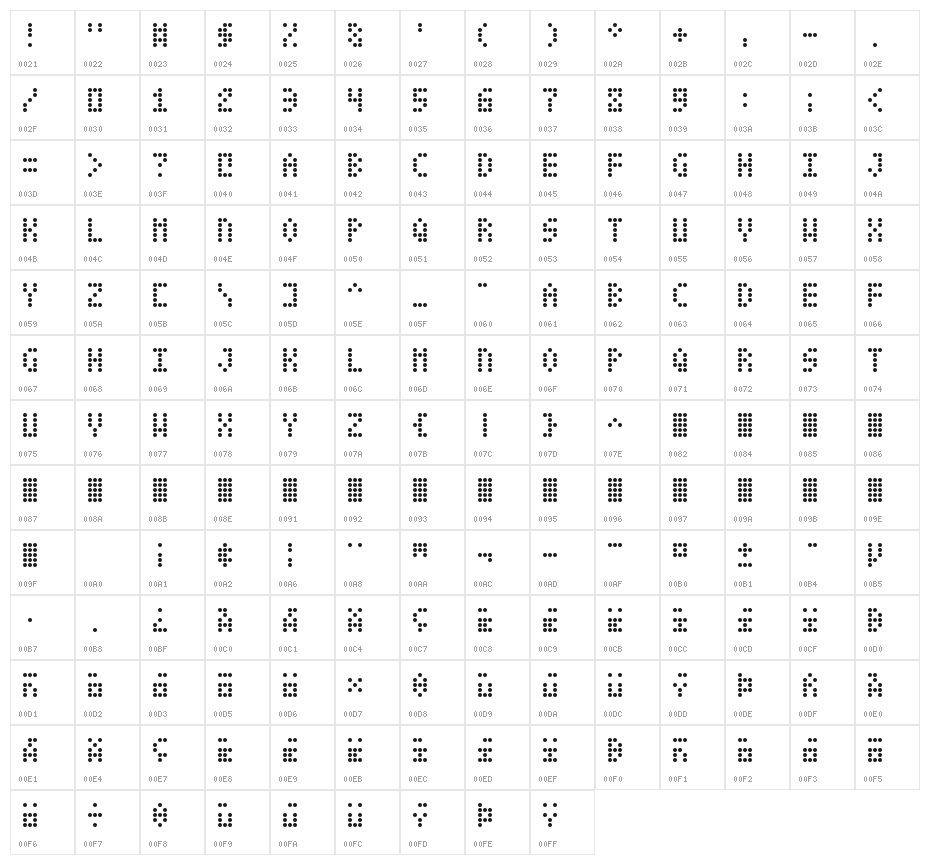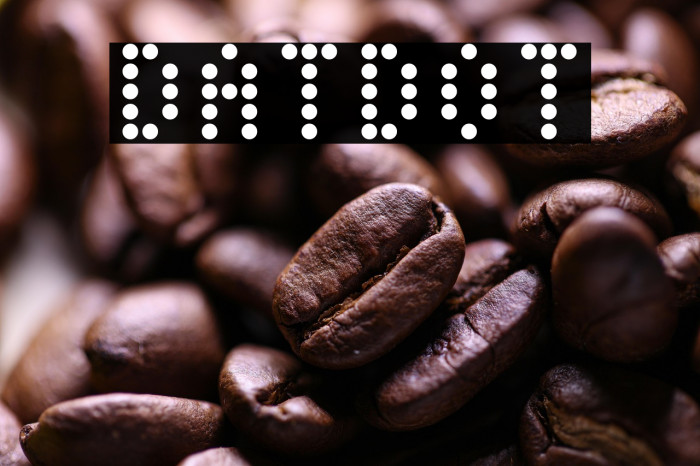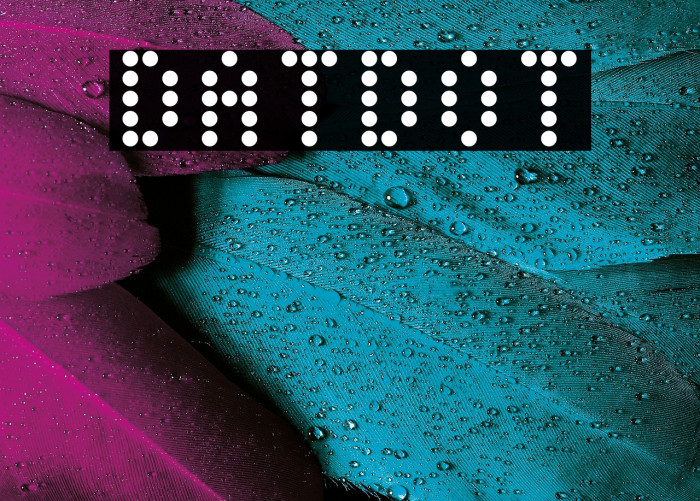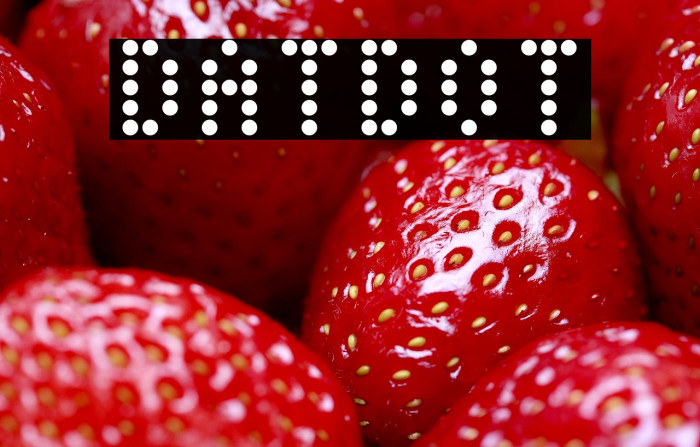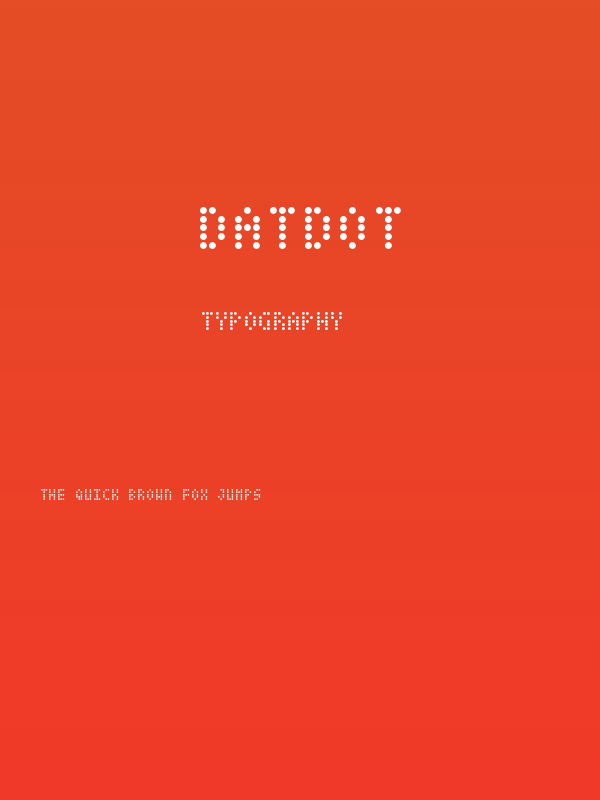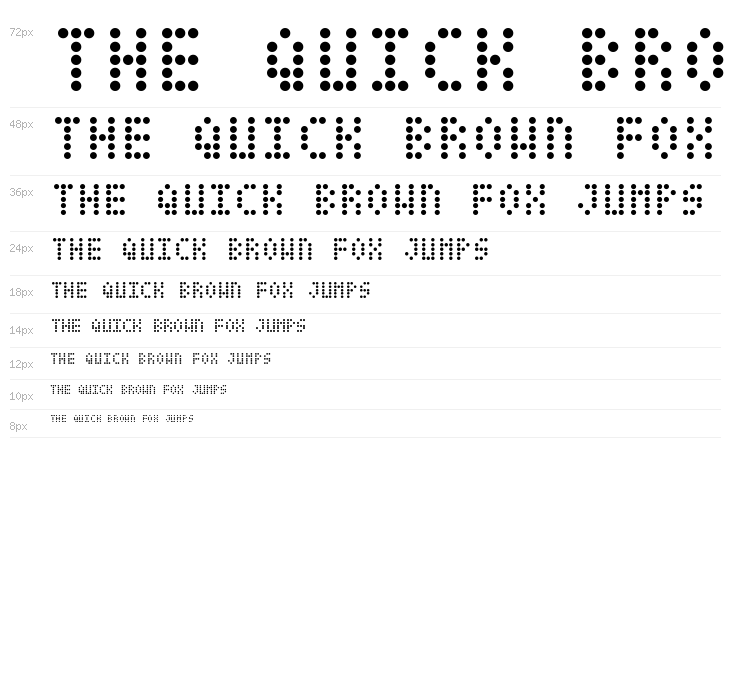
DatDot Font
DatDot Description
This font features a unique dot matrix design, where each character is composed of an arrangement of evenly spaced dots. The style is reminiscent of digital displays and retro computing, offering a distinct and playful aesthetic. The uppercase and lowercase letters, as well as numbers and special characters, maintain a consistent dot pattern, providing a cohesive look. The font is highly legible despite its unconventional structure, making it suitable for creative and modern design projects.
| Use Case | Headlines, Logos, Creative Displays |
| Proposed Projects | Ideal for digital-themed designs, retro posters, tech-related branding, and creative displays. |